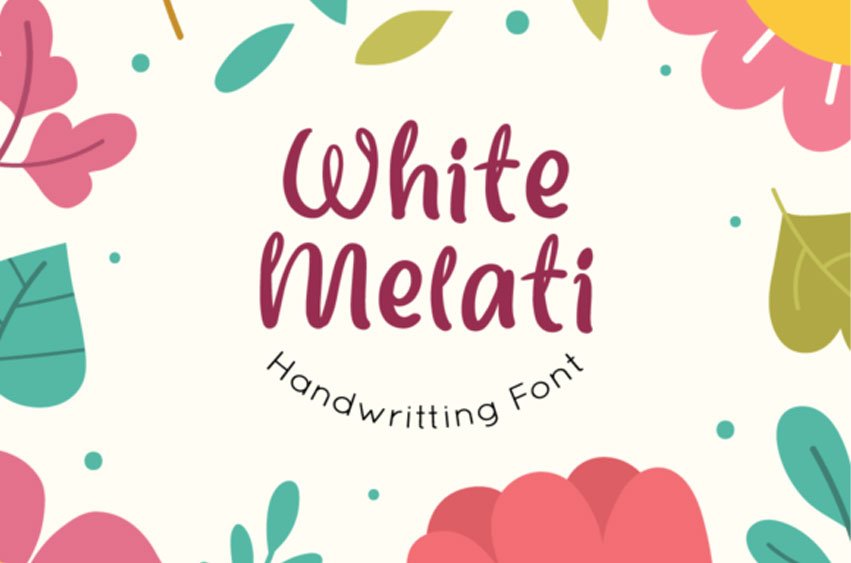
White Melati Font is a delightful handwriting font with a charmingly curved design that exudes a playful and cute appeal. This whimsical font is perfect for adding a touch of character and uniqueness to your creative projects.
Whether you’re designing greeting cards, posters, or children’s books, White Melati’s quirky charm will captivate your audience.